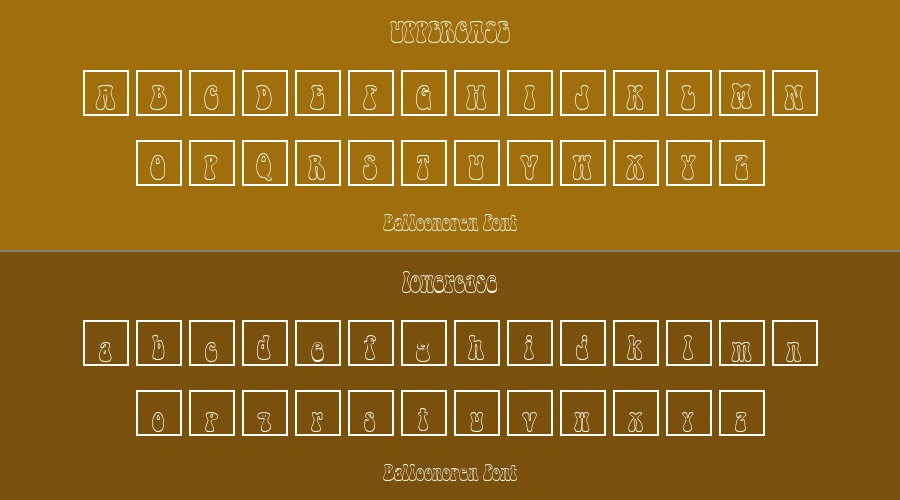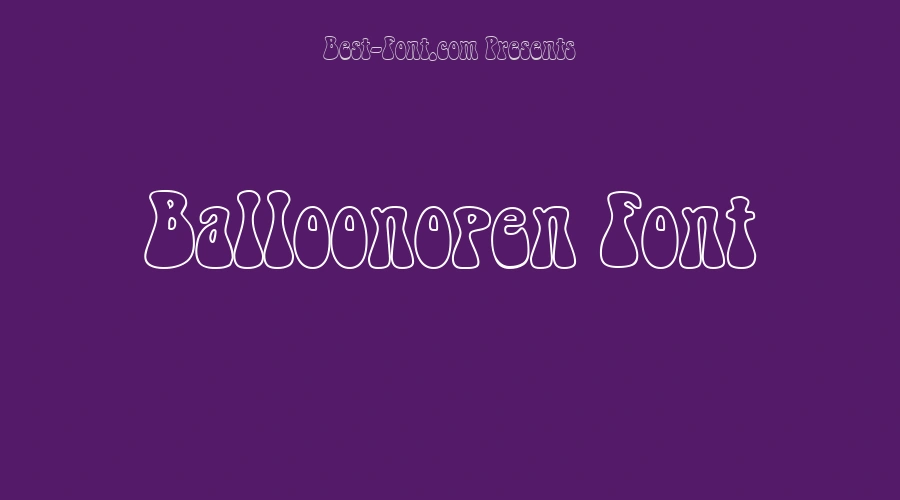
About Balloonopen Font
Balloonopen Font represents a sophisticated approach to type design, balancing ligatures with reliability. Perfect for marketing materials, this font family showcases impressive adaptability and sophistication throughout its character set. Designers appreciate its versatility and reliability.
Designers will appreciate nuanced touches including organic curves and multiple weights, adding sophistication to any project. These features become apparent in social media assets, where microfilm readability matters most. The careful treatment of proportion and emotional appeal ensures optimal performance.